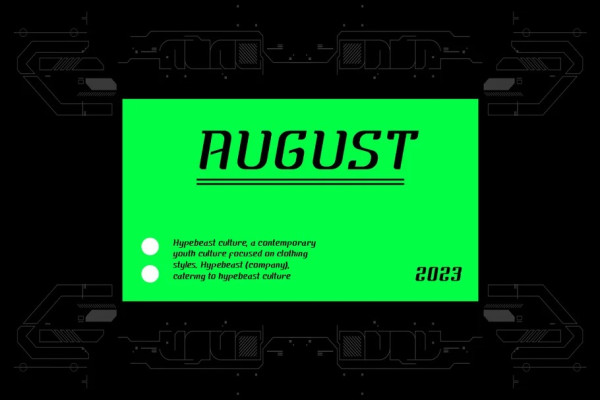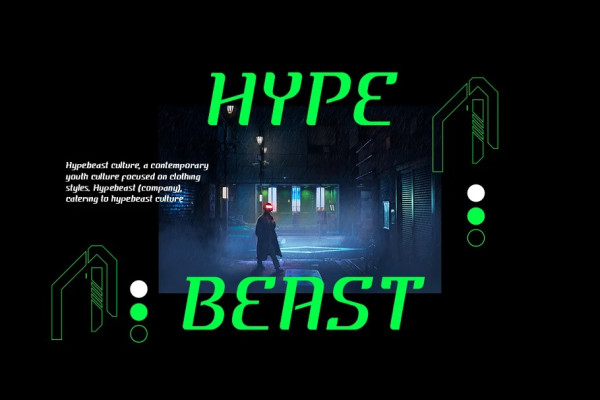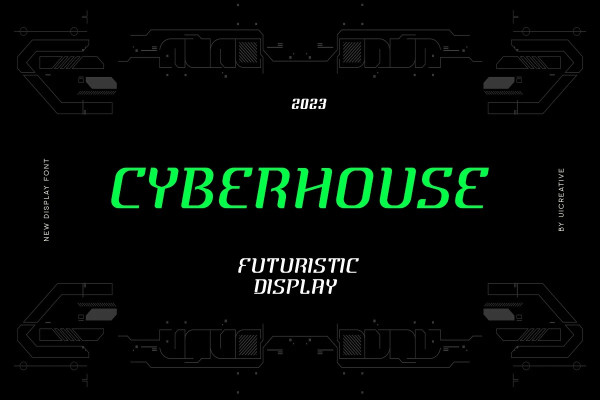
Cyberhouse Display Font
Cyberhouse Display Font – Futuristic Display Font. This font is ideally suited for a wide variety of projects, such as signature, stationery, logo, wedding, typography quotes, magazine or book covers, website headers, clothing, branding, packaging design, and more. Also, fashion-related branding or editorial design displays both masculine and feminine qualities.